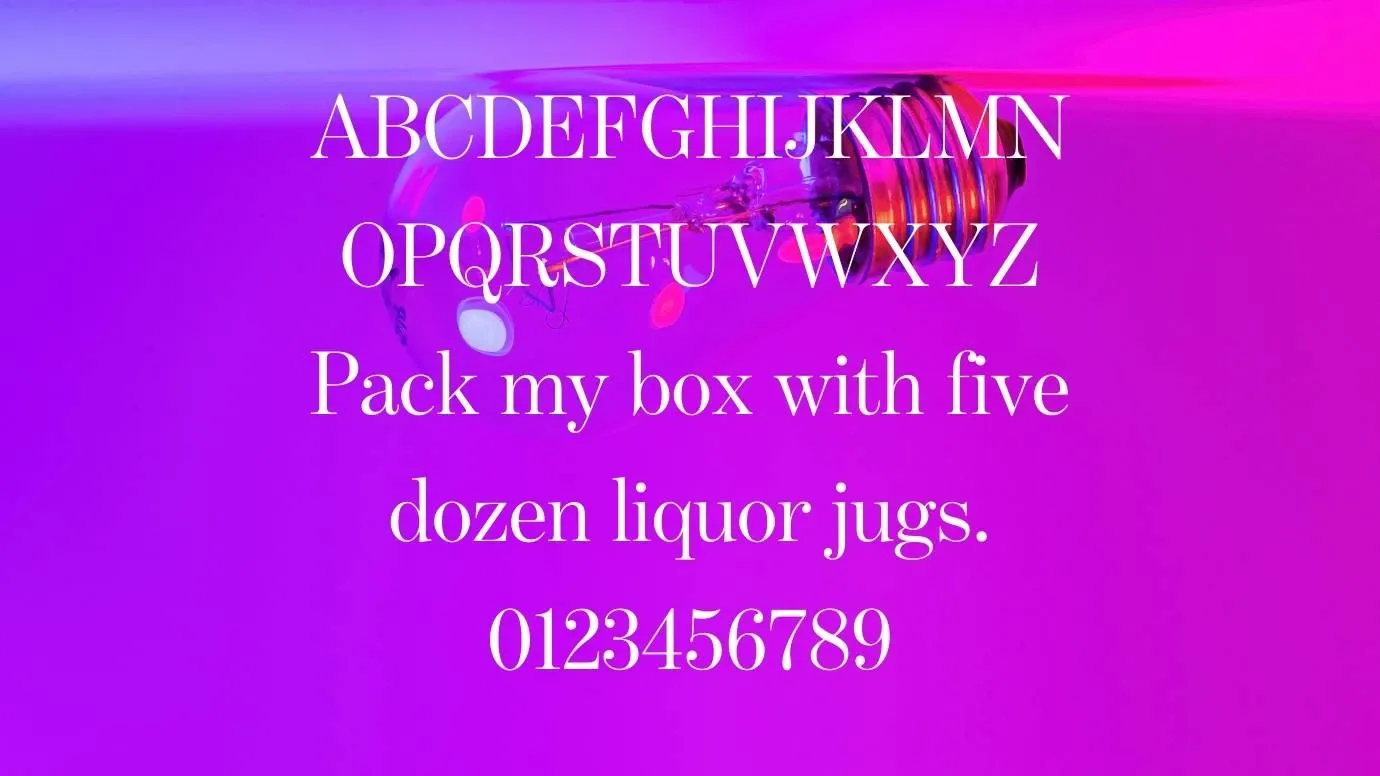
Today, We are discussing a popular font that comes in six weights and 36 beautiful styles known as Benton Modern Font. This stylish font was designed by Tobias Frere Jones. It was released with its advanced features that are fully free for all users. This stunning typeface was developed for the first time in Font Bureau in 1997.
Due to its different unique styles, this typeface is best for making amazing shapes and eye-catching designs. This typeface is so popular due to its bold serif characters that’s why many designers recommended this typeface for their personal projects. This amazing font comes in more than 283 characters including uppercase, lowercase, and some special characters.
Reason to Use Benton Modern Font
What type of font is Benton Modern Font?
It is a Serif font that was created by a famous typographic designer known as Tobias Frere Jones.
Can I use Benton Modern Font for my logo posters?
Yes, you can use this gorgeous typeface for different types of logo designs, postcards designs, wall murals, ebook covers, and emblems designs.
What google fonts are similar to Benton Modern Font?
You can pick any fonts that are similar to this typeface from the font family but Arno Font, IM FELL French Canon Font, Bodoni XT Font are the most alternatives.
What are the unique features of Benton Modern Font?